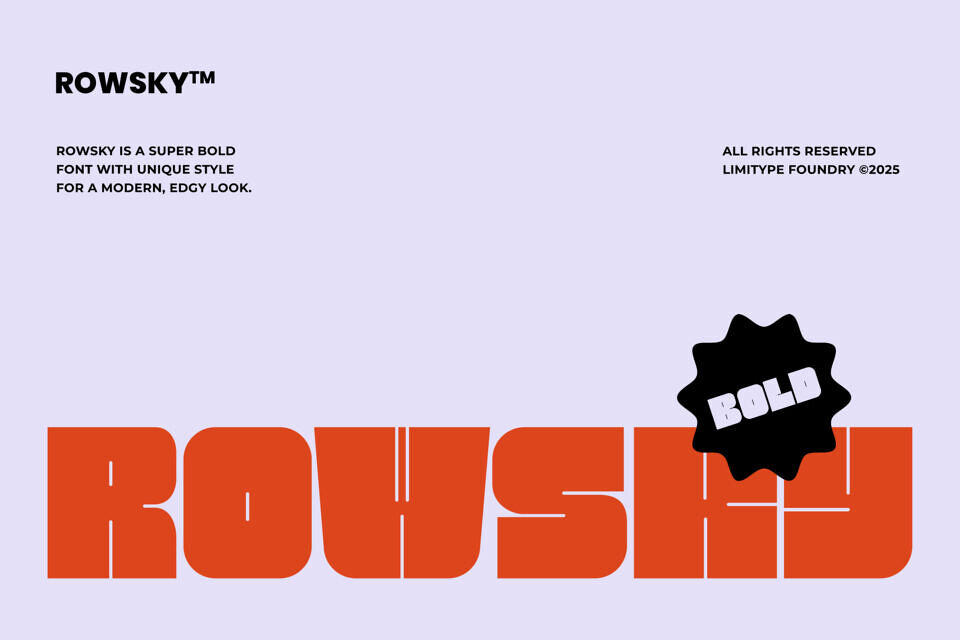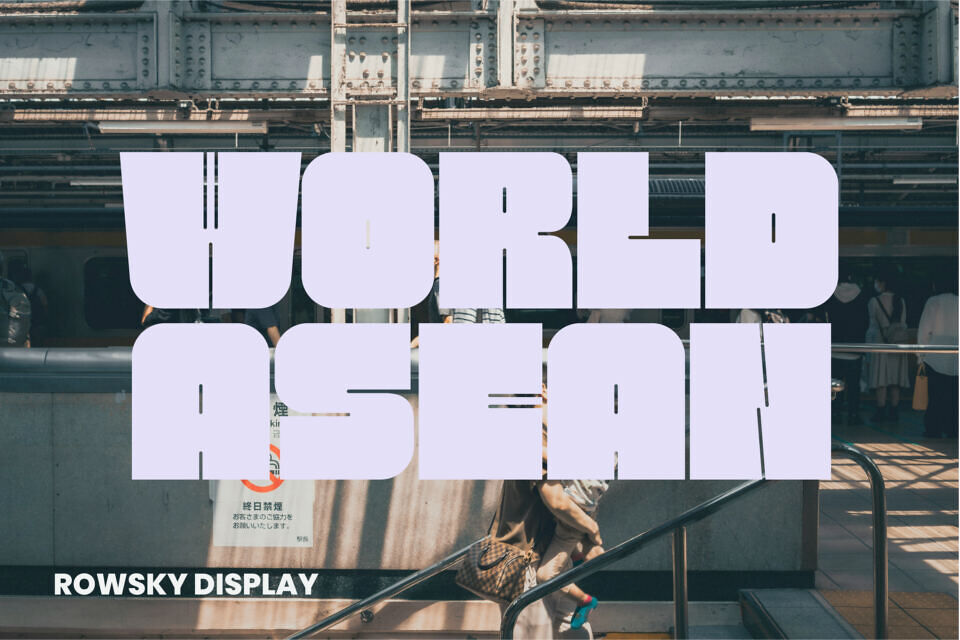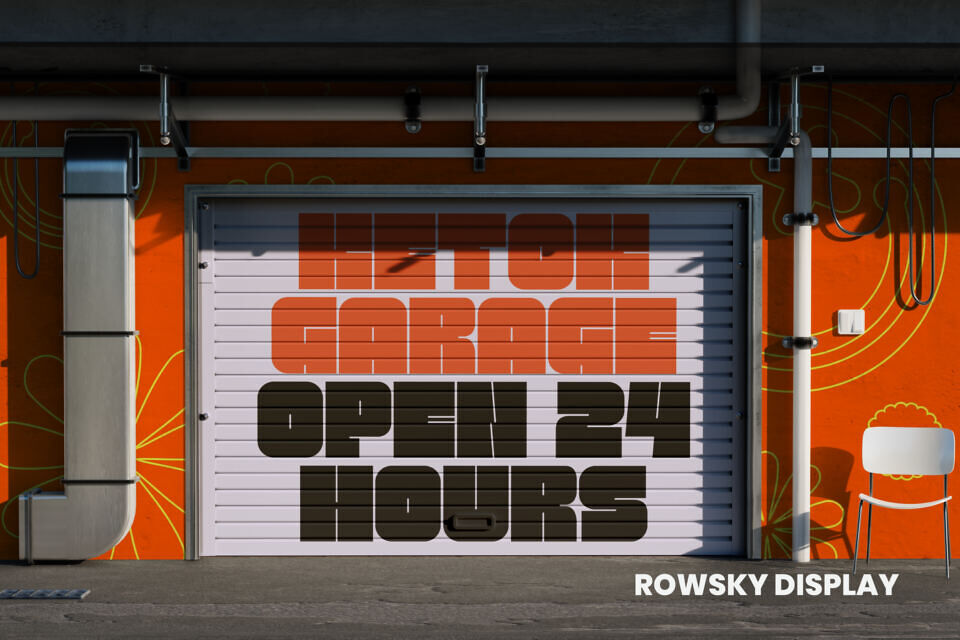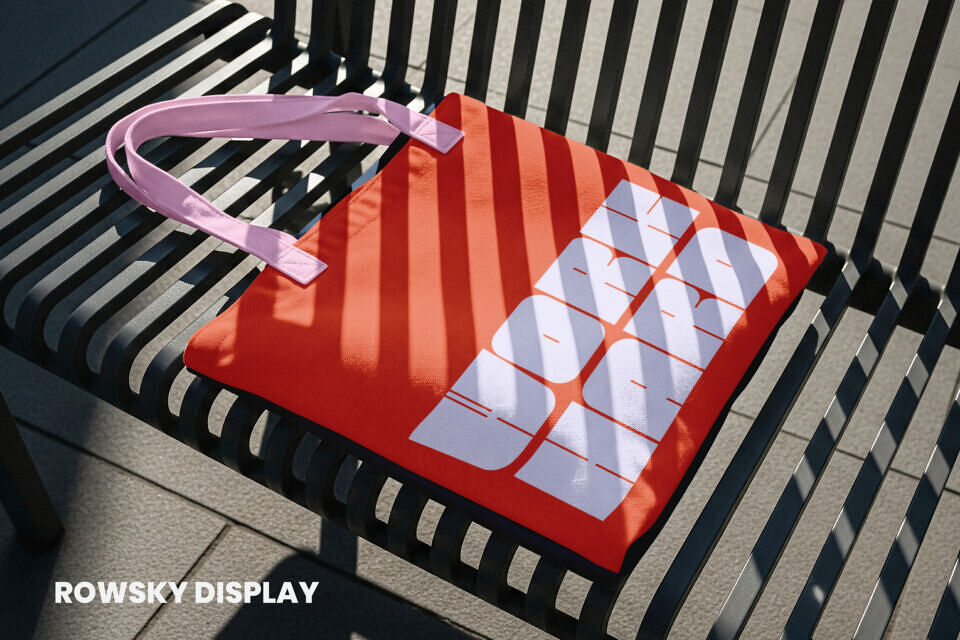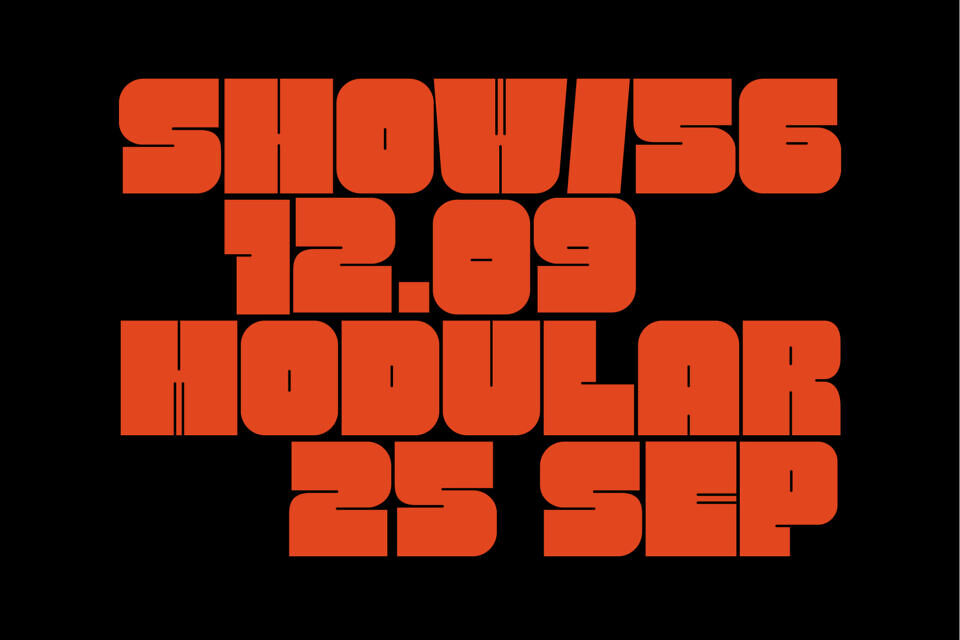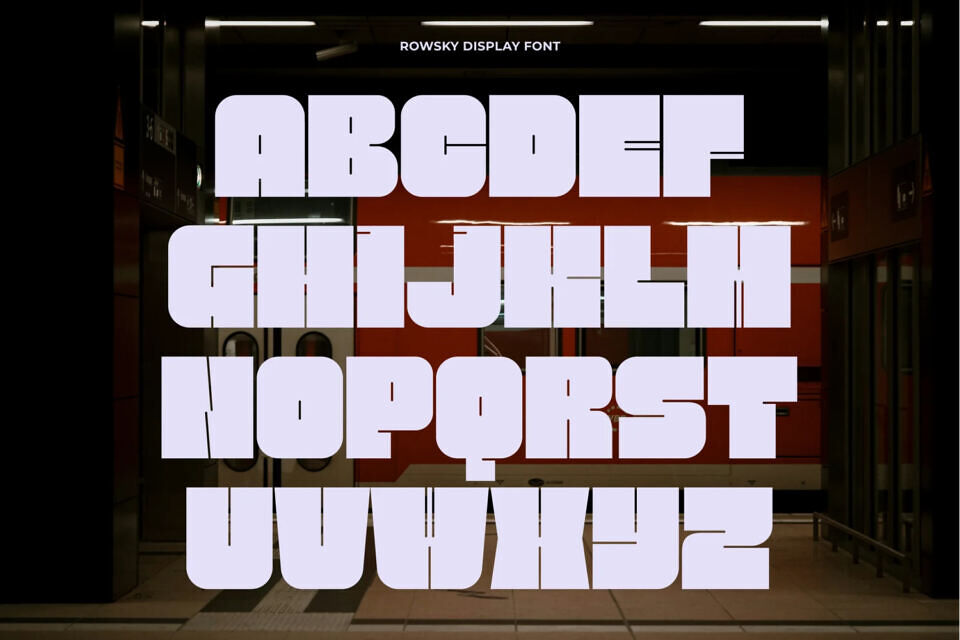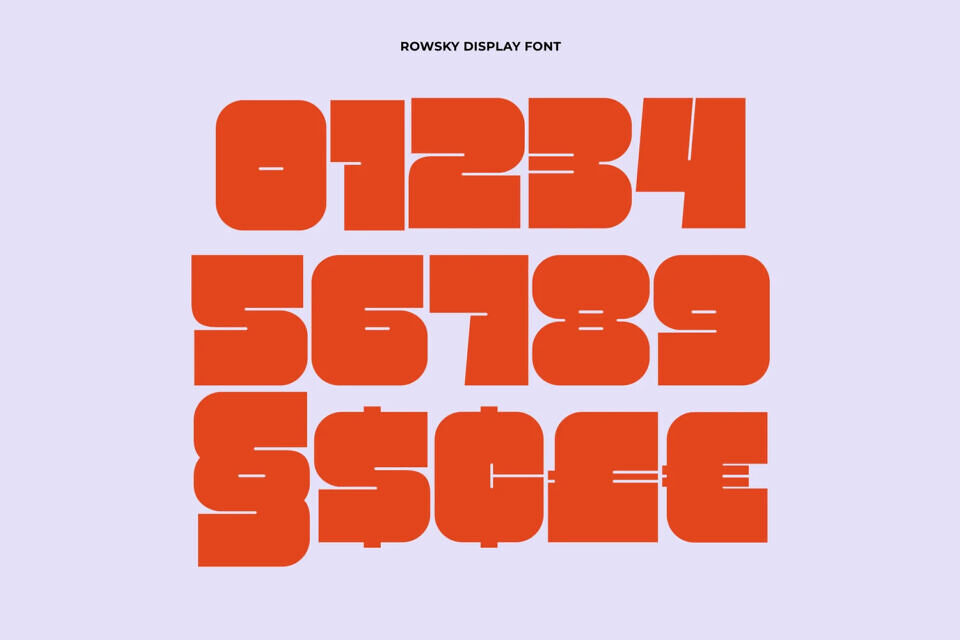
Rowsky is a super bold font with sturdy, blocky shapes full of character. Its unique style details bring a modern, edgy feel that sets it apart from typical bold fonts. Perfect for headlines, posters, logos, and visual identities that aim to appear strong, confident, and memorable.